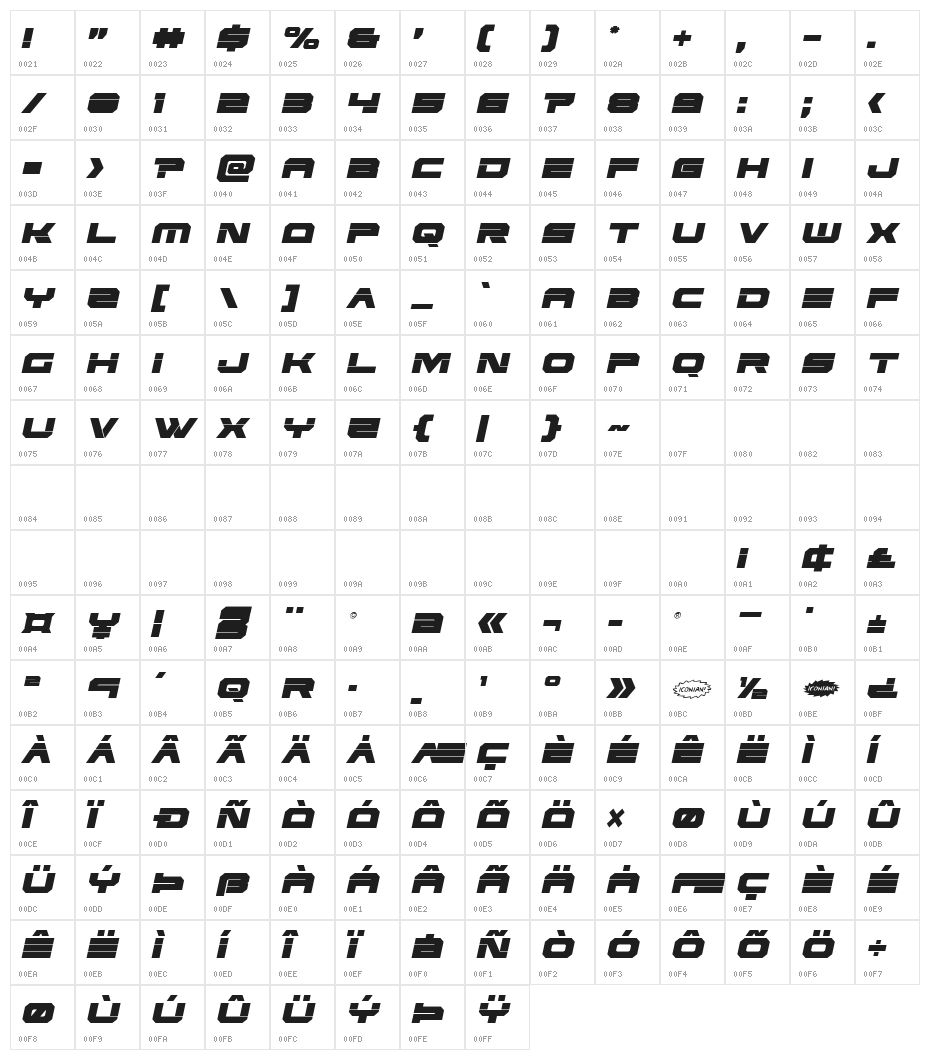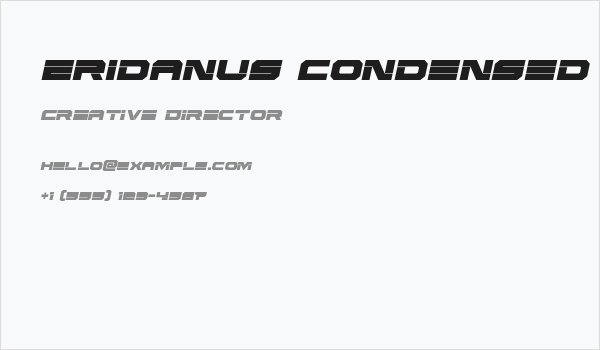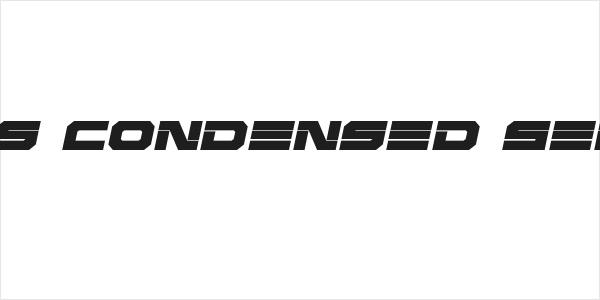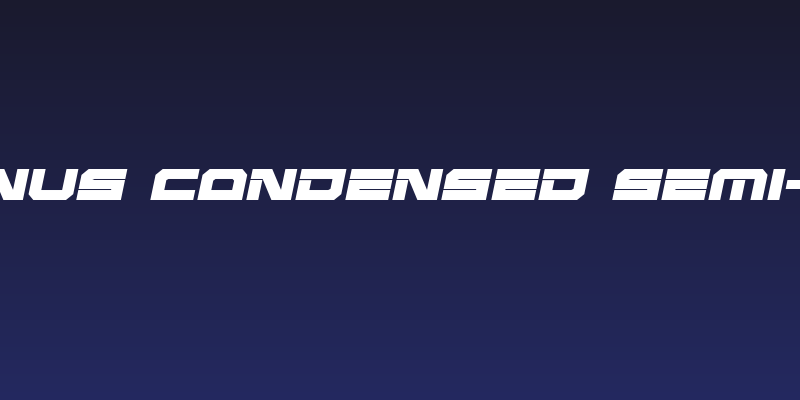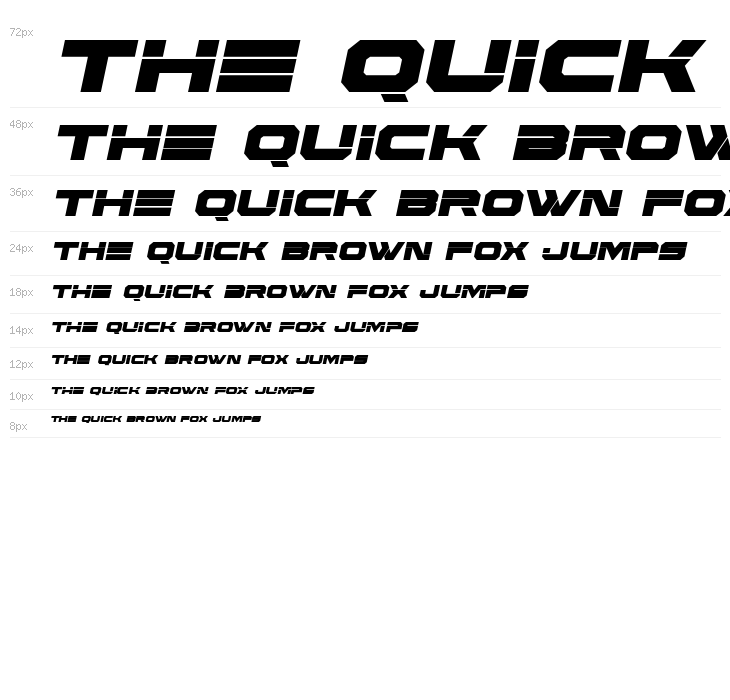
Eridanus Condensed Semi-Italic Font
Eridanus Condensed Semi-Italic Description
This font features a bold and futuristic design with a condensed and semi-italic style. The characters are angular and geometric, giving a sense of movement and modernity. The uppercase and lowercase letters maintain a consistent style, with sharp edges and a slightly slanted orientation. The numbers and special characters follow the same design principles, ensuring uniformity across all elements. This font is ideal for projects that require a strong and dynamic visual impact, such as technology branding or sci-fi themed designs.
| Proposed Projects | Ideal for technology branding, sci-fi themed designs, video game titles, and modern advertising. |